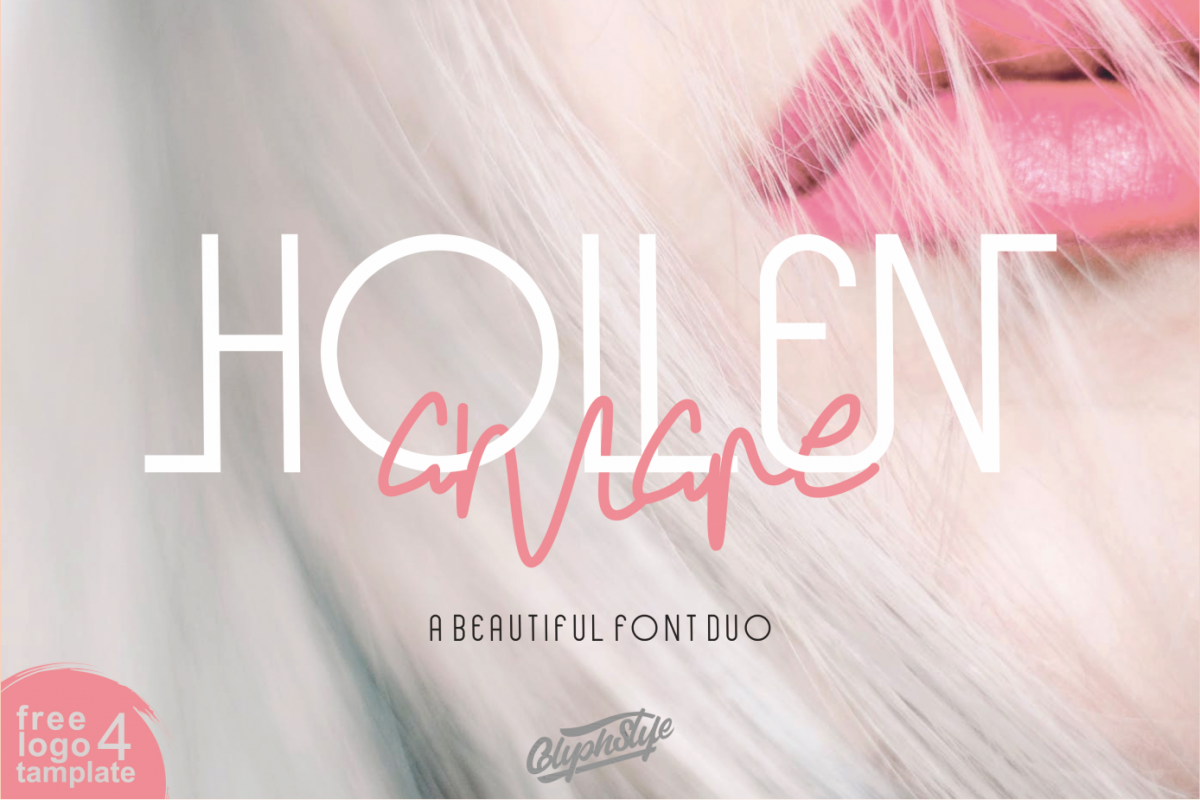
Hollen Amare Font Duo - free logo template
Hollen amare font duo are two elegant font combinations. consists of Hollen Amare Regular and Hollen Amarae script. these two font combinations are very suitable for branding projects. Hollen amare font duo is perfect for luxury logos, wedding designs, social media posts, advertisements, business cards, cover magazines, labels, photography, watermarks, invitations, stationery, and any projects that require handwriting tastes with upright writing combinations.
- Font feature Uppercase,
Lowercase,
Numerals & Punctuations,
Stylistic Set,
Ligature,
Multilanguage